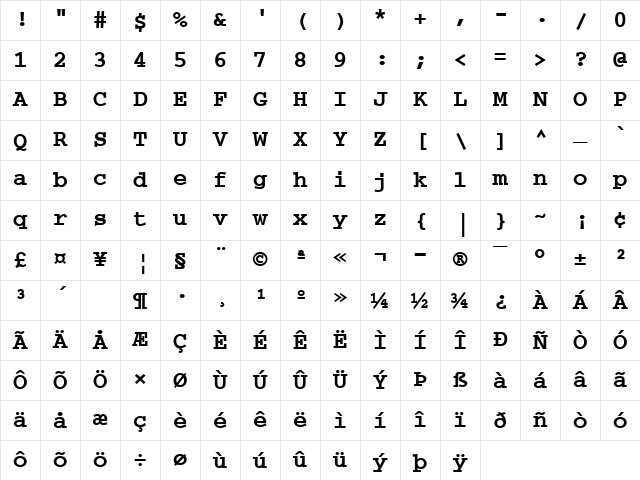
Courier Bold
Courier Family
Complete Courier Bold glyph index. Displaying only characters natively supported by Courier Bold font.
Design Context for Courier
Courier uses fixed-width spacing throughout, giving it the structured, systematic character associated with coding environments and technical documentation. Its bold stroke weight gives it real presence on the page.
Pro Tip: Use Courier with slightly increased line-height for extended reading - fixed-width spacing can feel dense in longer passages without extra breathing room.